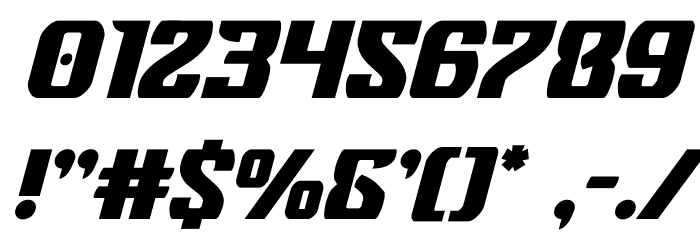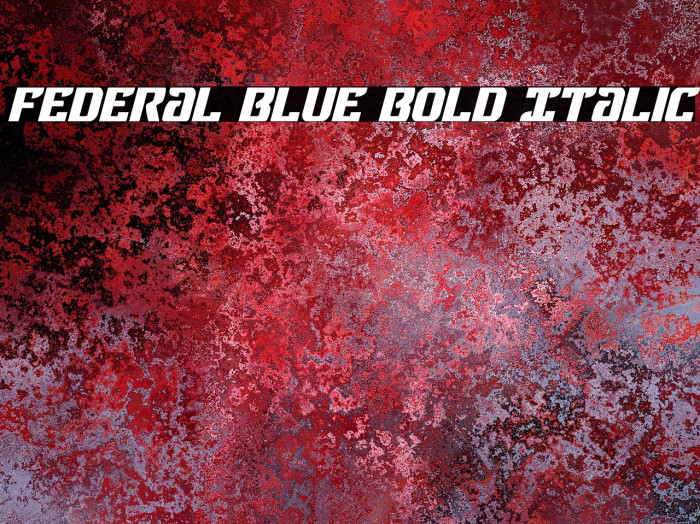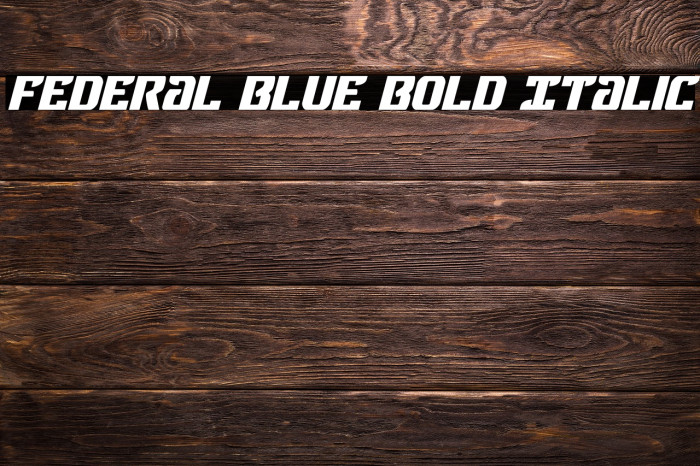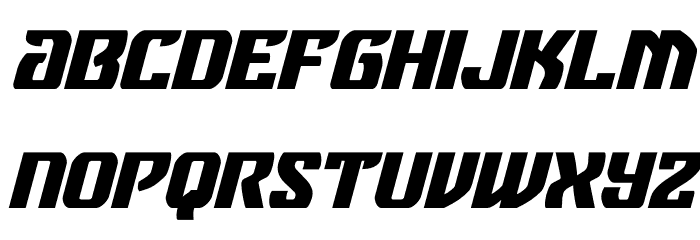
Federal Blue Bold Italic Font
This font exhibits a bold and dynamic style, characterized by its strong, angular lines and italicized slant. The uppercase and lowercase letters maintain a consistent thickness, contributing to a robust and impactful appearance. The numerals and special characters follow the same design principles, ensuring uniformity across all glyphs. The font's boldness is accentuated by its italic nature, giving it a sense of motion and energy. The characters are tightly spaced, enhancing the compact and cohesive look. This font is well-suited for projects that require a strong visual presence, such as branding, advertising, and headlines.
A bold, italicized font with strong, angular lines and tight spacing.
• Proposed Projects: Ideal for branding, advertising, sports team logos, and dynamic headlines.
• Category: Sans-Serif
• Bold: Yes
• Italic: Yes
• Weight: Bold
• Width: Normal
• Character Spacing: Tight
• Contrast: Low
• Overall Style: Modern
• Use Case: Headlines, Logos